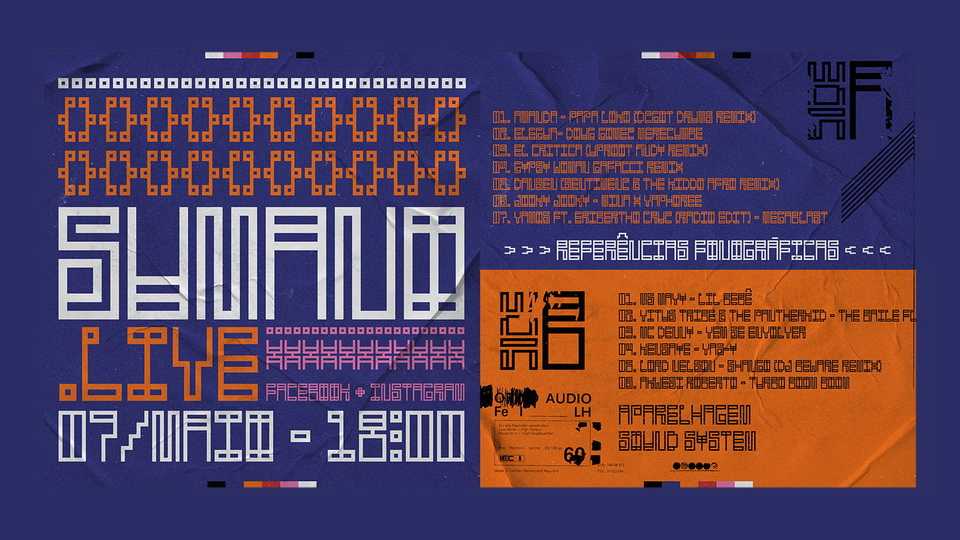
Download Sumano font, a typeface embracing the influence of Northern Brazil with urban electronics, as well as in his musical and audiovisual experiences. Sumano is a mixture of the artist’s cultural references and an invitation to graphic experimentation.